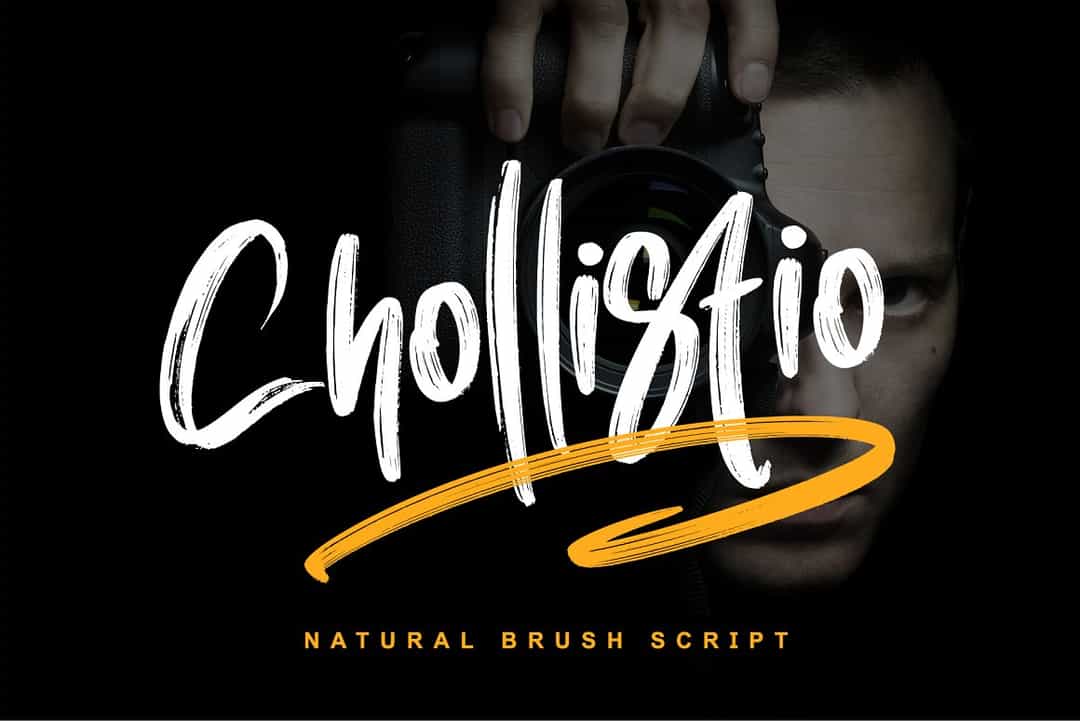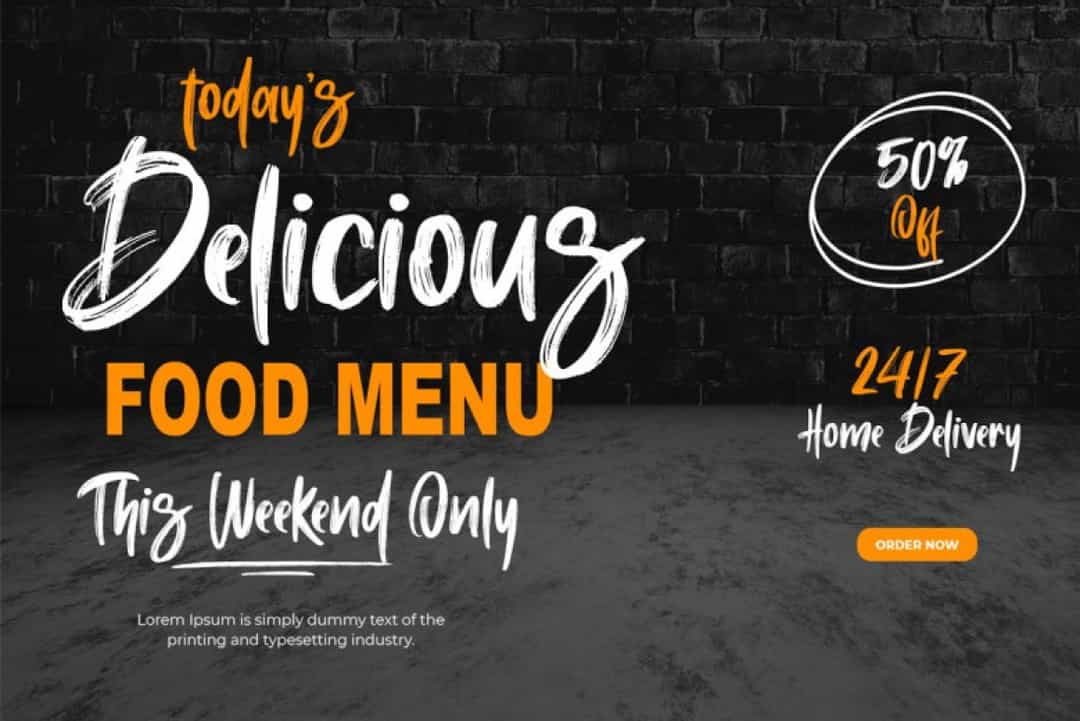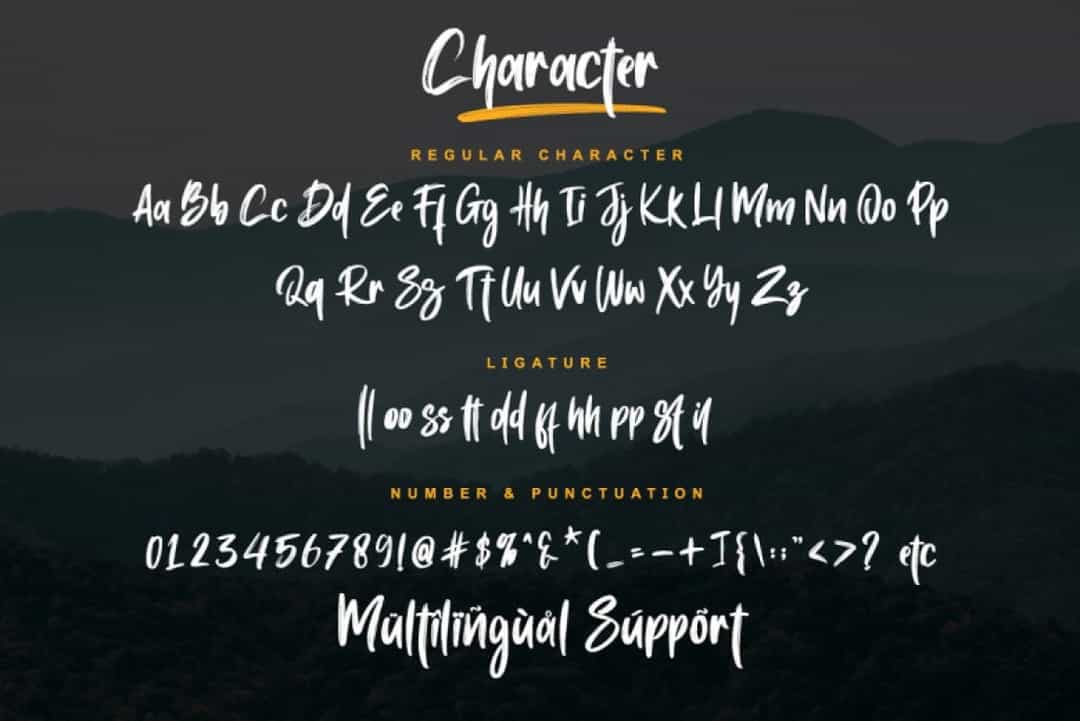
Chollistio is an brush script font with a dry brush texture and rough edges, designed specifically to work across various applications ranging from branding for businesses, Instagram quotes, Christmas greetings, poster headers for blogs, packaging community photography sports photography film as well as hobbies! PUA encoded means it easily accesses all characters and symbols!